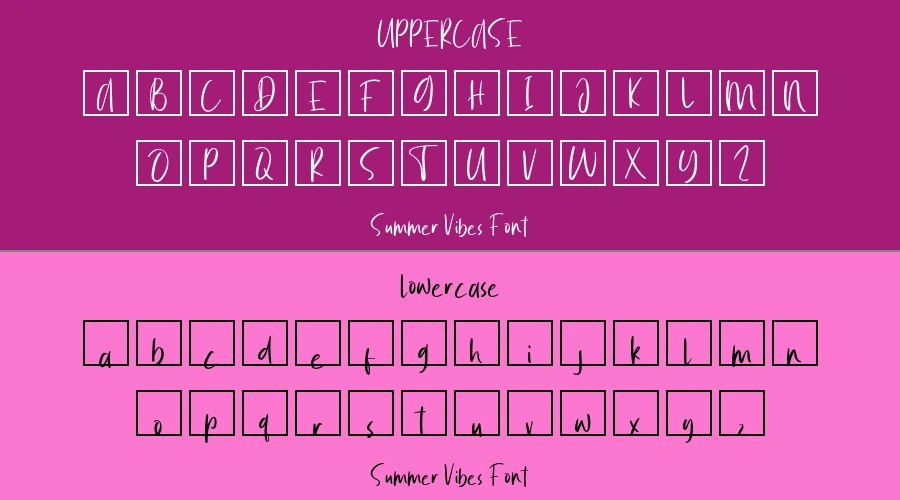
About Summer Vibes Font
Summer Vibes Font represents a sophisticated approach to type design, balancing systematic design with visual comfort. Perfect for financial statements, this font family showcases impressive distinctiveness and creative potential throughout its character set. Designers appreciate its versatility and reliability.
Designers will appreciate nuanced touches including distinctive details and ordinals, adding sophistication to any project. These features become apparent in headlines, where emotional response matters most. The careful treatment of descender depth and brand personality ensures optimal performance.